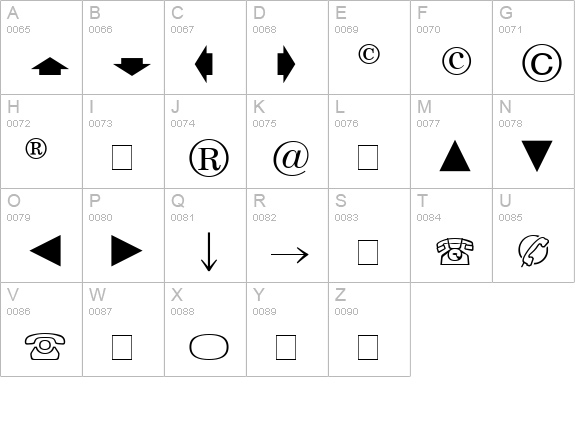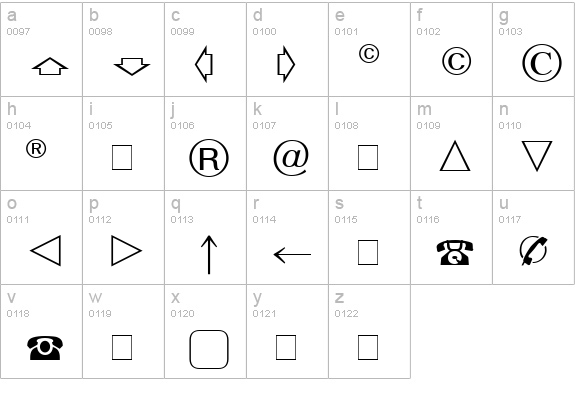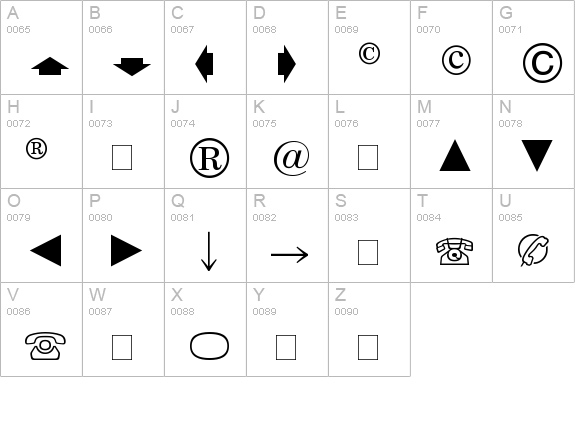
Abacus One SSi Font Details
Abacus One SSi font is a classic and elegant typeface that exudes sophistication and style. With its sleek lines and modern design, this font is perfect for a wide range of projects, from branding to editorial design. The Abacus One SSi font is versatile and easy to read, making it ideal for both print and digital applications. The best part about the Abacus One SSi font is that it is free to download at FontsMarket.com. This means that you can easily add this beautiful font to your collection without breaking the bank. Whether you are a professional designer or a hobbyist looking to spruce up your projects, the Abacus One SSi font is a fantastic choice that will elevate your work to the next level. Don't miss out on the opportunity to enhance your designs with the Abacus One SSi font. Download it for free today at FontsMarket.com and start creating stunning visuals that will leave a lasting impression.